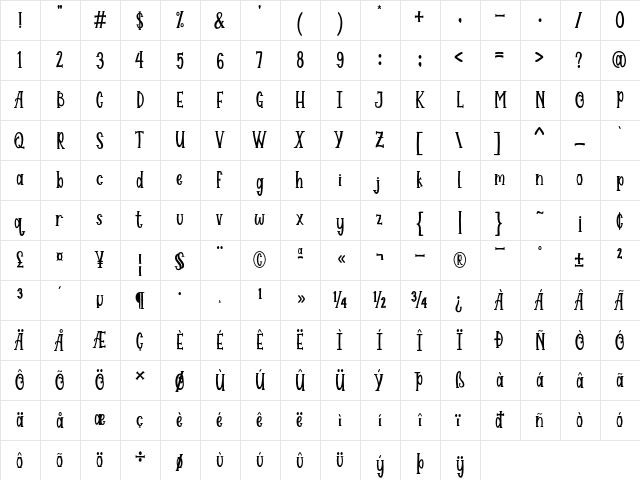
Monster Sweetness Regular
| Foundry | 7NTypes |
| Designer | Dreamink; Dani; Situjuh Nazara |
Design Context for Monster Sweetness Typeface
Monster Sweetness is a composed and adaptable typeface that performs quietly and consistently across a wide range of design contexts.